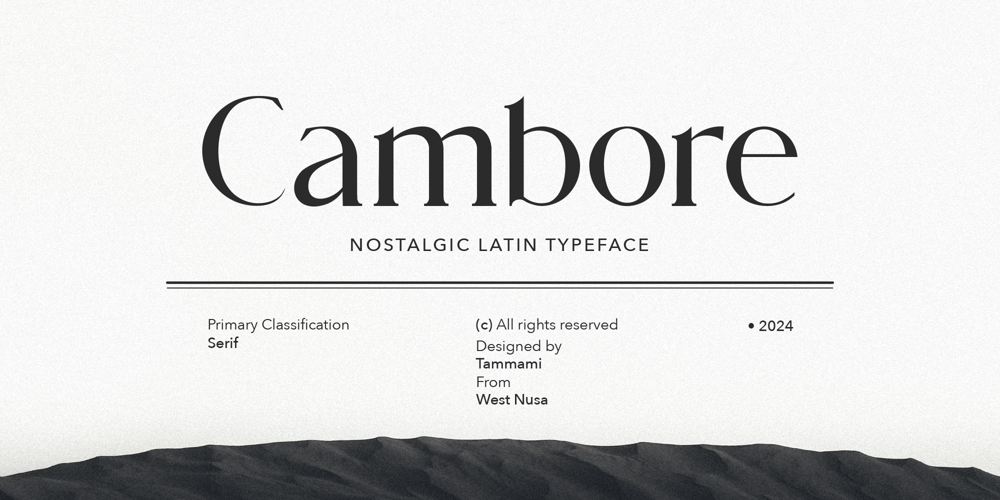
Cambore
Cambore font
Cambore Font Family was designed by Gholib Tammami and published by Gholib Tammami. Cambore contains 1 styles and family package options. Cambore – Latin Serif is an exquisite font that seamlessly blends a touch of classic Latin serif style with a dash of retro elegance. This font exudes a sense of formality and sophistication, making it an ideal choice for branding purposes.